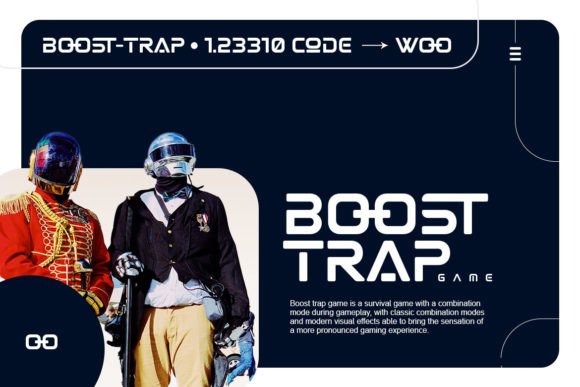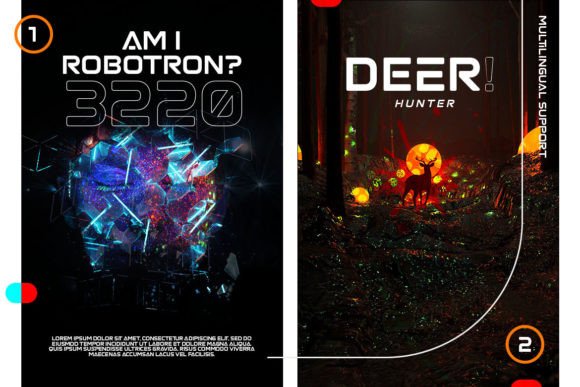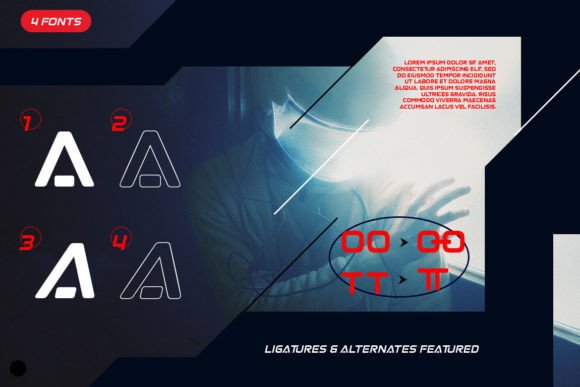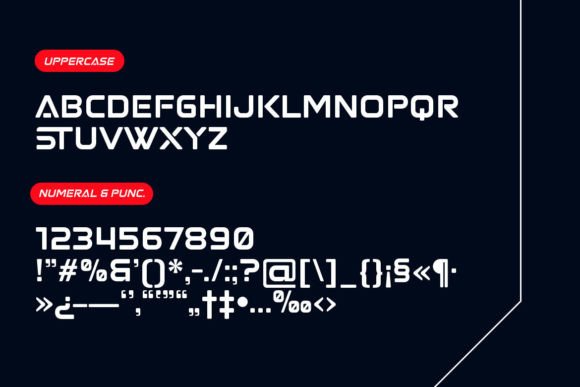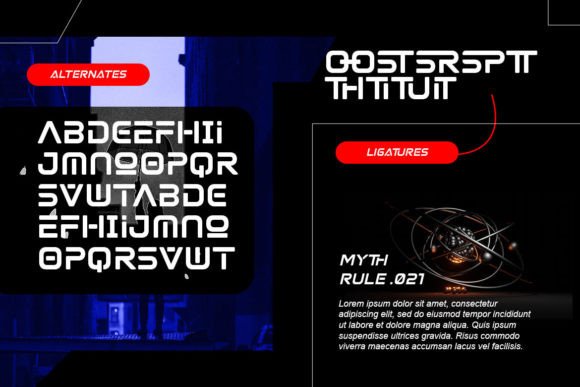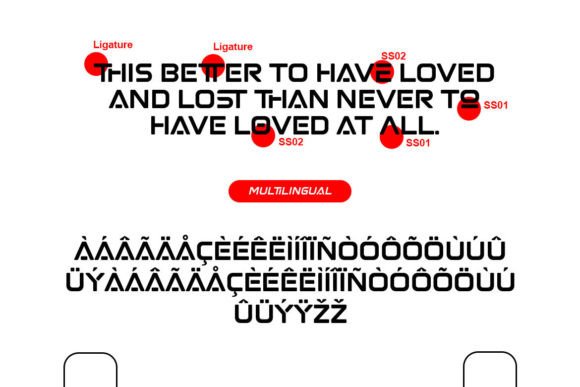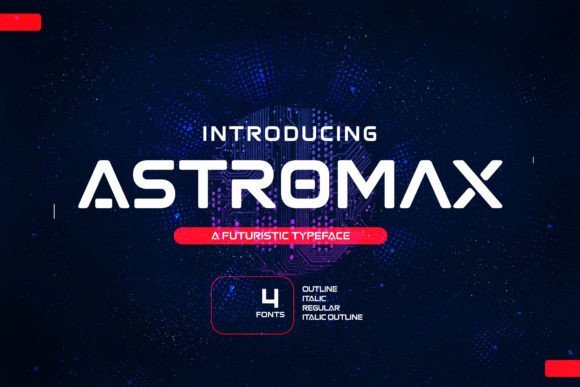
The Future of Typography: Unlocking the Power of Astromax Font
As a designer, there’s nothing quite like the rush of seeing a project come to life. You’ve poured your heart and soul into it, and finally, the moment of truth arrives – the first glance at your creation. It’s a feeling that never gets old, and it’s exactly this thrill that drives us to push the boundaries of creativity. Whether you’re working on a gaming project, a music flyer, or a movie poster, the right font can make all the difference.
Enter the Astromax Font, a cutting-edge typography solution designed to take your designs to the next level. With its futuristic aesthetic and PUA encoding, this font offers unparalleled flexibility and customization options. By leveraging the Astromax Font, designers can tap into a world of possibilities, elevating their projects to new heights and setting themselves apart from the competition.
Astromax Font Key Features
- Font Family: Astromax is a futuristic sans-serif font family designed for use in digital interfaces and visualizations.
- Font Size: Available in 4 font weights (Thin, Light, Regular, Bold) and 2 font styles (Regular and Italic).
- Unique Characteristics: Features a unique blend of geometric and organic shapes, resulting in a futuristic and modern aesthetic.
- Character Set: Includes a comprehensive character set, including Latin, Cyrillic, and Greek alphabets, as well as a range of punctuation and symbol characters.
Astromax Font Review
I recently had the chance to work with the Astromax Font and I have to say, it’s been an interesting experience. Here are my honest thoughts on this font.
- Asthetics – The font’s unique blend of sci-fi and futuristic elements gives it a sleek and modern look that’s perfect for tech-related projects.
- Readability – Despite its futuristic design, Astromax is surprisingly easy to read, making it suitable for body text and headings alike.
- Flexibility – The font comes in a range of weights, from light to bold, allowing designers to mix and match to suit their needs.
- Limited script support – Astromax’s script support is limited, which may make it difficult to use for projects requiring extensive handwritten text.
- Not ideal for print – The font’s bold lines and futuristic design may not be suitable for print materials, where a more subtle font may be preferred.
Astromax is a solid font that excels in its futuristic aesthetic and readability. While it may have some limitations, it’s perfect for designers working on tech-related projects or those looking for a unique, modern font. With some careful consideration of its limitations, Astromax can be a valuable addition to any designer’s toolkit.
Astromax Font is ideal for creating futuristic and sci-fi themed designs. Use it for logos, headings, and body text to add a touch of otherworldliness to your projects.